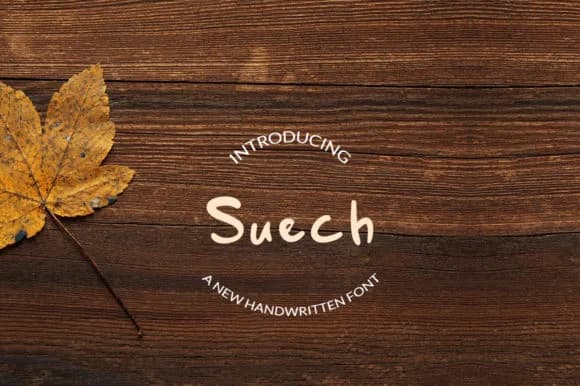
1 / 5About Suech Font
Suech Font by Twenty Two is a modern handwritten script with clean, approachable letterforms that deliver personal warmth and distinctive character to any creative design project. This typeface brings an authentically personal touch to creative work that truly demands both refinement and genuine individuality. Whether you're designing wedding invitation suites with custom monograms, creating boutique skincare packaging that stands out on retail shelves, developing personalized greeting card collections, or crafting artisanal product labels for small businesses and independent makers, Suech offers the refined handwritten aesthetic that resonates with audiences seeking authenticity over manufactured polish.
The font's versatile character set and accessible letterforms make it equally suited to digital applications and print materials alike. From Instagram Stories with genuine personality to physical packaging that tells a brand's story, Suech adapts to contexts where handwritten warmth matters far more than formal precision. Its clean construction ensures consistent legibility across sizes and mediums while maintaining the organic quality that makes handwritten scripts so visually compelling to contemporary audiences who value genuine, human-made aesthetics in their visual communication and branding.
Suech Font is a script font that shines as a display or heading face. Pair it with a clean sans-serif or serif font for body text β the contrast creates a clear hierarchy while the two styles stay balanced and easy to read.